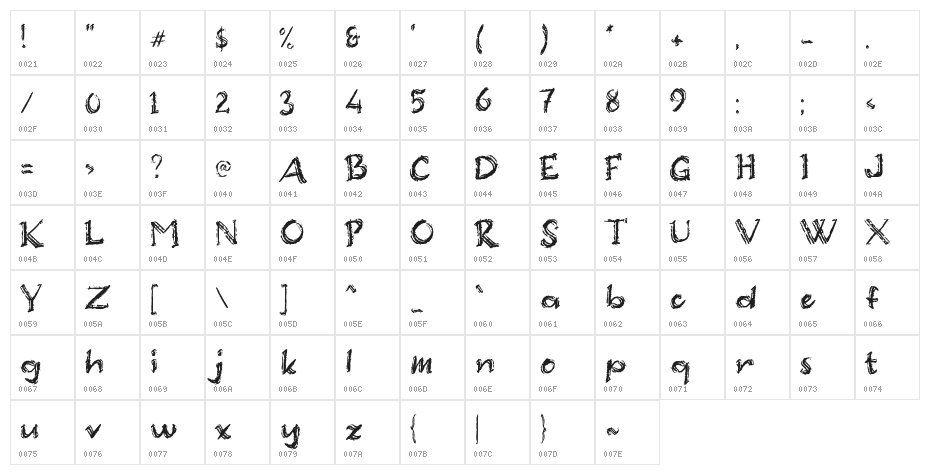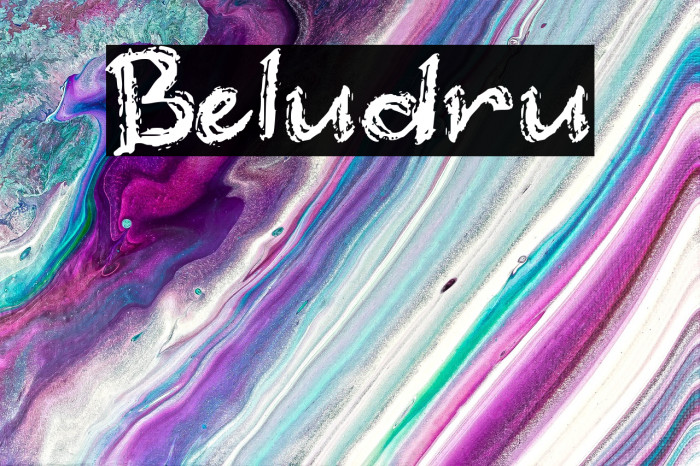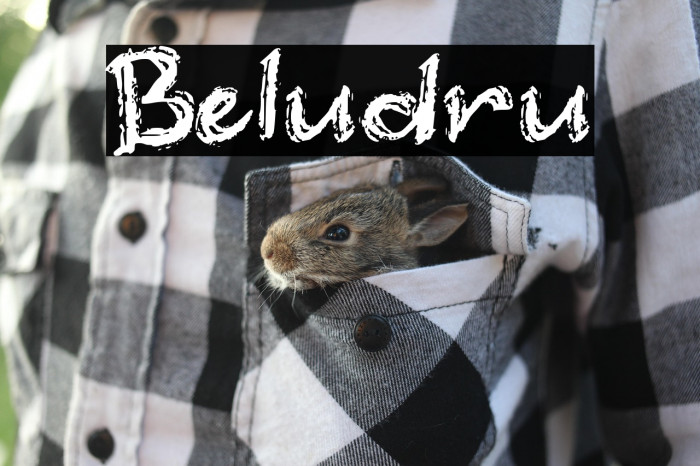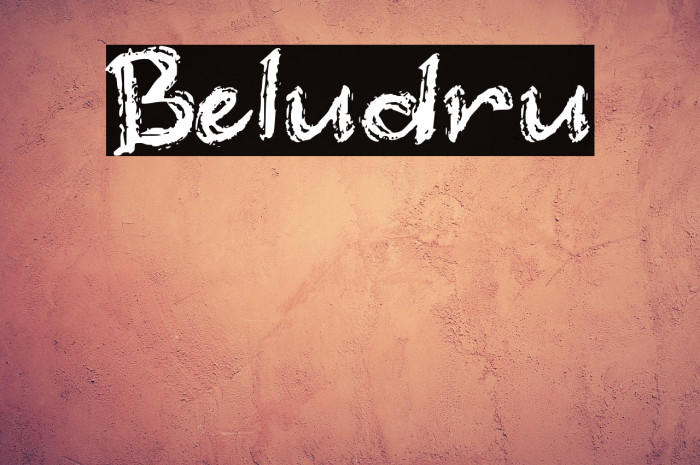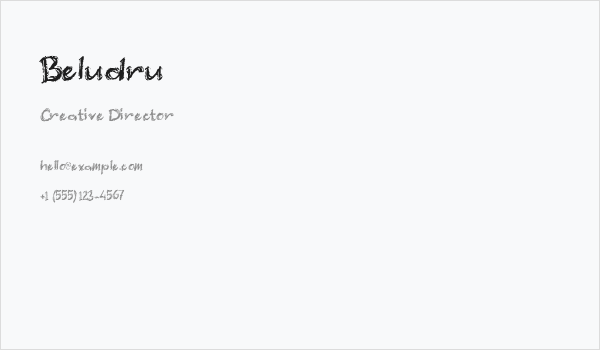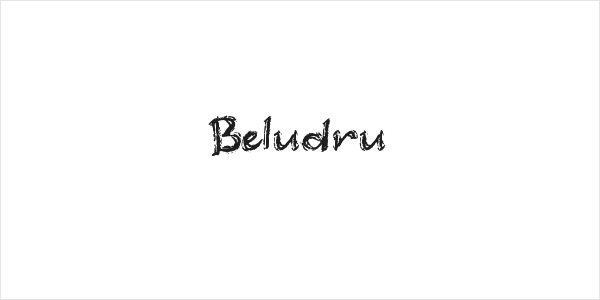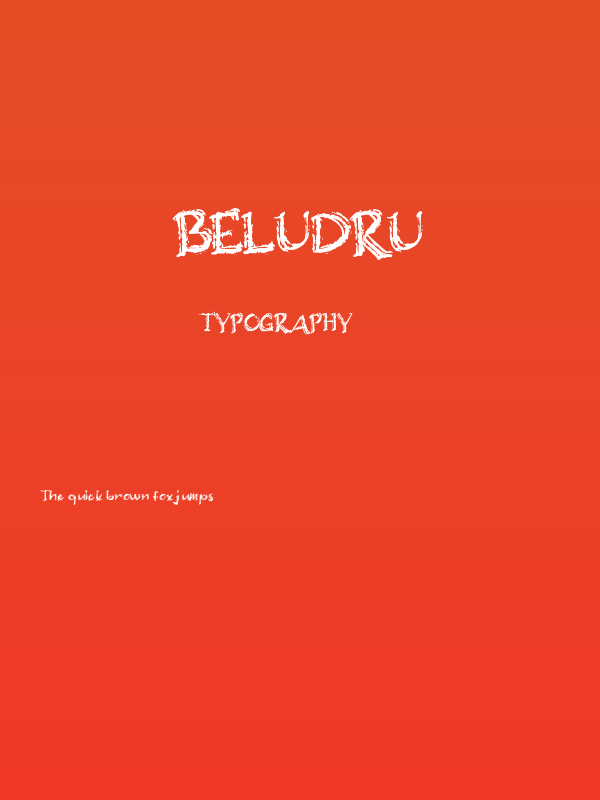
Beludru Font
Beludru Description
This font features a bold and textured appearance, reminiscent of brush strokes or distressed paint. The characters are irregular and have a rough, hand-drawn quality, giving them a dynamic and energetic feel. The uppercase and lowercase letters maintain a consistent style, with varying thickness and jagged edges that add to the overall rugged aesthetic. Numbers and special characters follow the same design, ensuring a cohesive look across all elements. This font is ideal for projects that require a bold statement or an artistic touch.
| Use Case | Headlines, Logos, Artistic projects |
| Proposed Projects | Ideal for posters, album covers, artistic branding, and any project needing a bold, expressive typeface. |